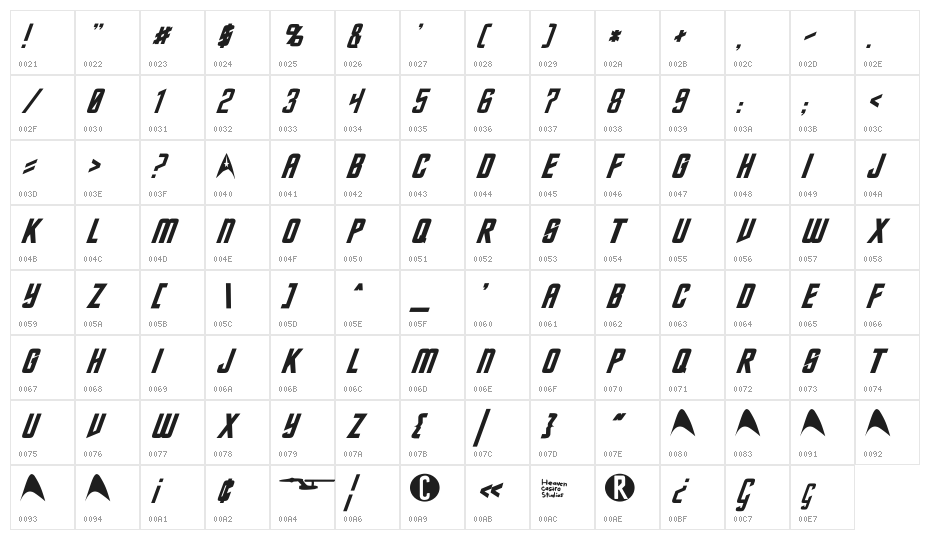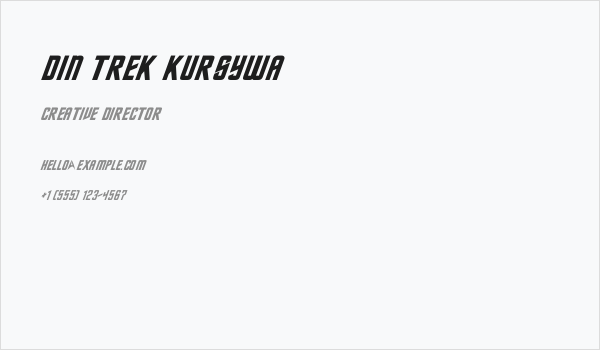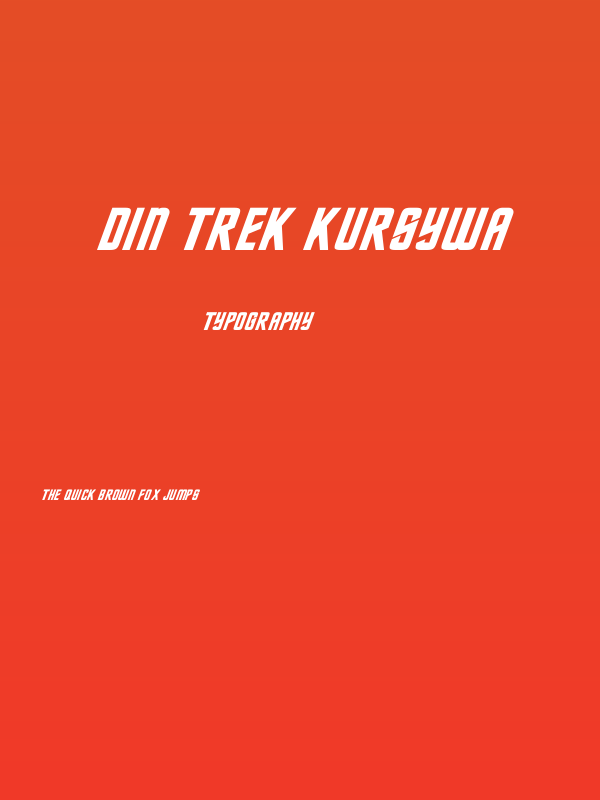
DIN Trek Kursywa Font
DIN Trek Kursywa Description
This font features a bold, italicized style with a strong, angular design. The characters are slanted, giving a sense of motion and dynamism. The strokes are thick and consistent, providing a robust and impactful appearance. The uppercase and lowercase letters maintain a uniform style, with sharp edges and a modern aesthetic. The numbers and special characters follow the same design principles, ensuring coherence across all elements. This font's distinctive style makes it suitable for attention-grabbing headlines and branding projects.